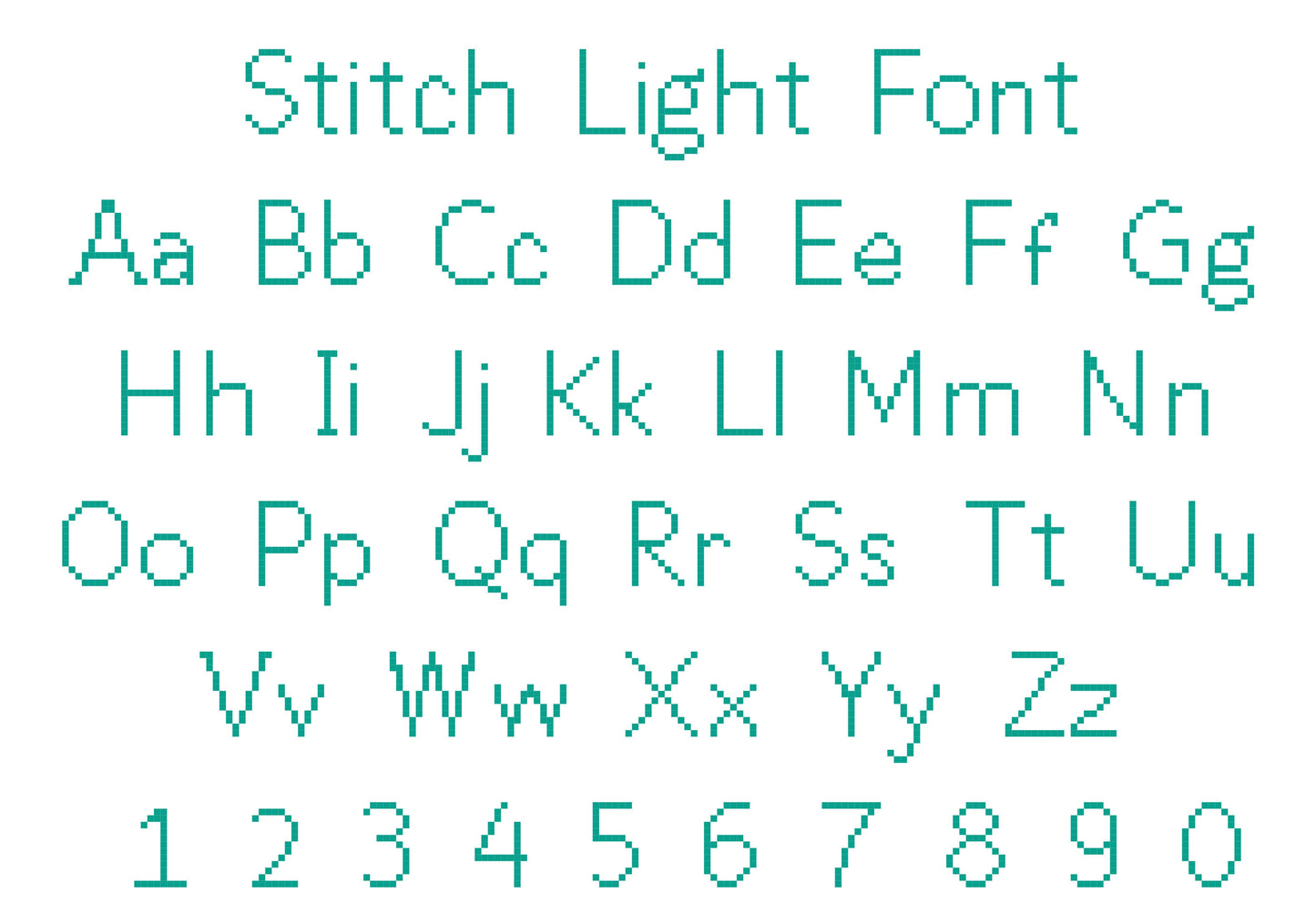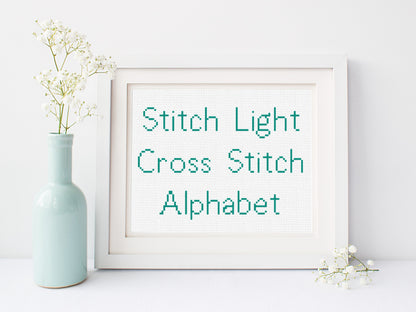
Stitch Light Font PDF Pattern
This cross stitch font is easy and fast and features simple block lines for a classic look.
✂DETAILS:
Capital letters measure 3-13 stitches wide x 13 stitches tall
Lowercase letters measure 1-11 stitches wide x 8-13 stitches tall
Numbers measure 7-9 stitches wide x 12 stitches tall
Stitches used:
-Whole stitches only
Perfect for Christmas stockings and other small projects
Beginner Friendly